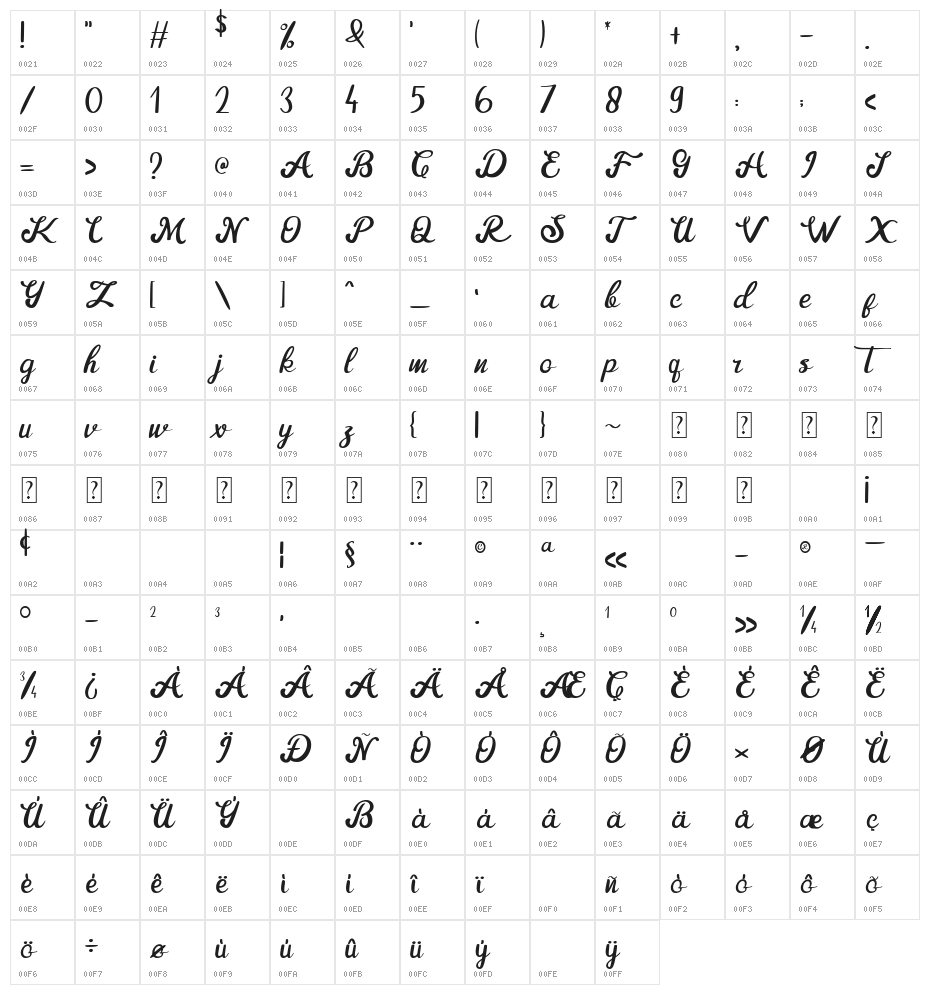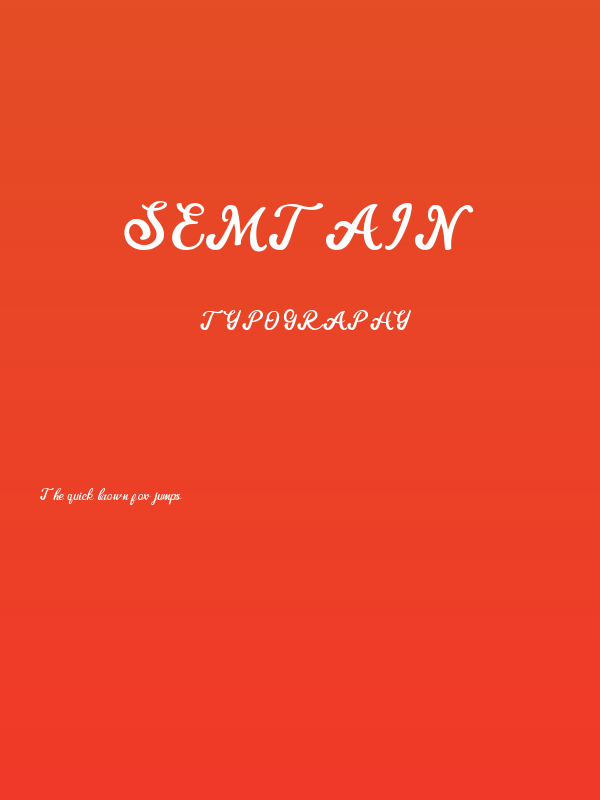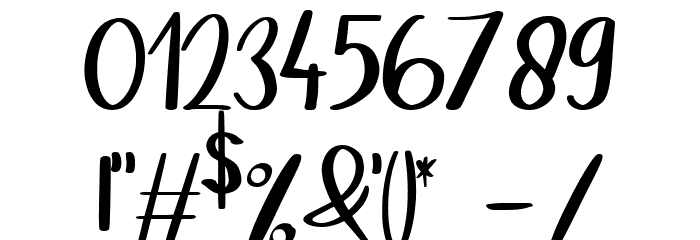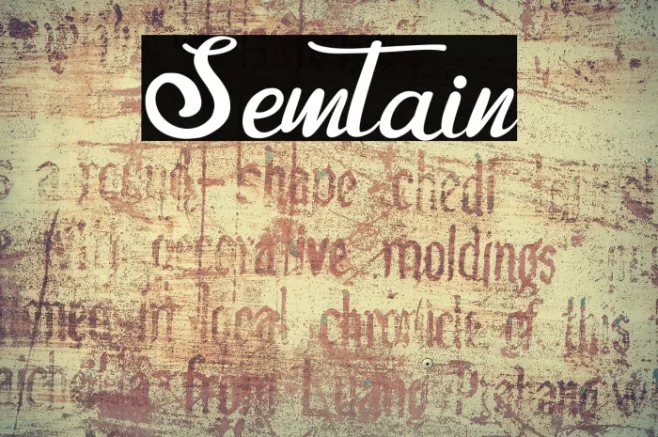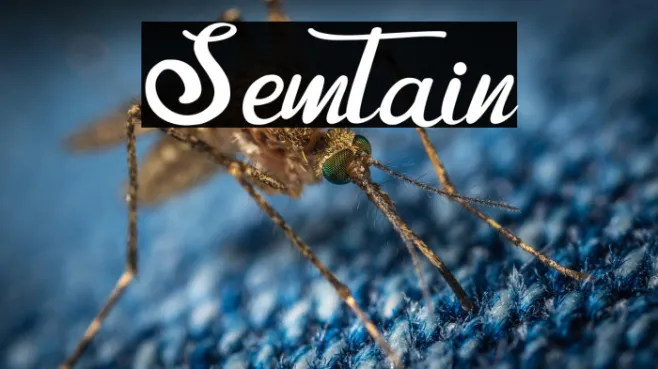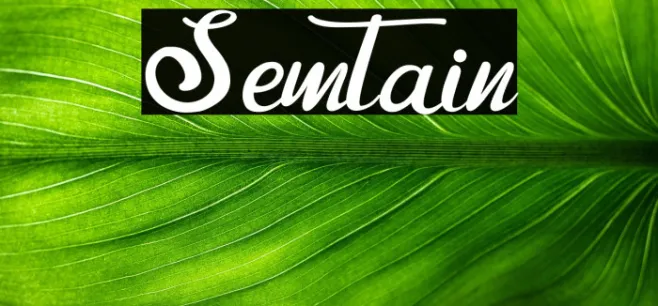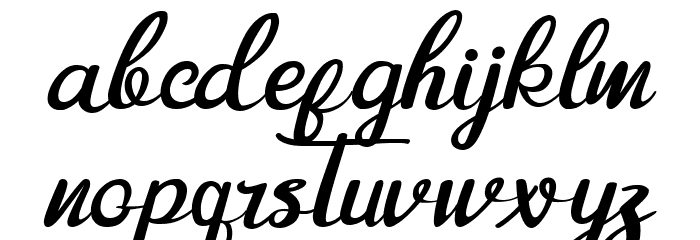
Semtain Font
Semtain Description
This font features a flowing, cursive style with elegant loops and swashes, giving it a sophisticated and artistic appearance. The uppercase letters are ornate, with distinct flourishes that add a touch of elegance. The lowercase letters maintain a consistent flow, enhancing readability while retaining a decorative flair. Numbers and special characters are designed to match the overall aesthetic, with smooth curves and balanced proportions. This font is ideal for projects that require a touch of elegance and creativity, such as invitations, branding, or artistic designs.
| Use Case | Logos, Invitations, Artistic Designs |
| Proposed Projects | Ideal for wedding invitations, branding, artistic designs, and decorative projects. |